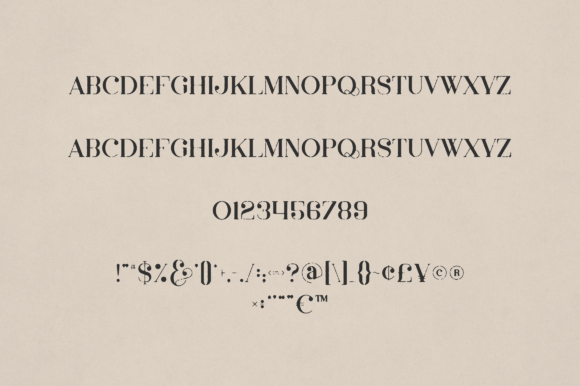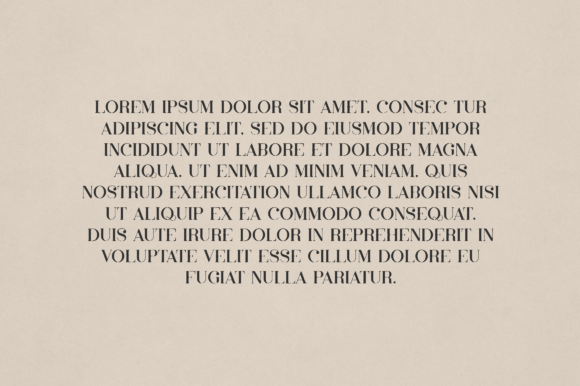
Celia Font: Elevate Your Design with Elegance and Versatility
In the world of typography, a font can make or break a design. It’s the foundation upon which your creative vision is built, and when chosen wisely, it can elevate your project to new heights. This is where Celia Font comes into play – an elegant and versatile serif font designed to make your typography truly unique. Whether you’re working on a logo, branding, headline, or plain text, Celia is the perfect companion to bring your design to life.
The Essence of Celia Font
Celia Font is not just any ordinary font. Its elegance and versatility are what set it apart from the rest. With its refined serif lines and classic appeal, Celia exudes sophistication and charm. This font is meticulously crafted to add a touch of luxury and refinement to any design project. Whether you’re aiming for a vintage look or a modern aesthetic, Celia adapts seamlessly, making it an ideal choice for designers and crafters alike.
One of the standout features of Celia Font is its incredible versatility. It’s a font that can be used across a myriad of design projects, including:
• Branding Projects: Establish your brand identity with a font that communicates elegance and professionalism.
• Home-Ware Designs: Add a touch of sophistication to your home decor designs, making them stand out with a unique typographic style.
• Product Packaging: Elevate your product’s presentation with a font that speaks of luxury and quality.
• Magazine Headers: Create captivating headlines that draw readers in with Celia’s classic charm.
• Text Overlay: Use Celia as a stylish text overlay on any background image, adding depth and character to your visuals.
Why Choose Celia Font?
With so many fonts available, why should Celia be your go-to choice? Here are a few compelling reasons:
• Uniqueness: Celia offers a unique style that will set your designs apart from the crowd.
• Versatility: Its adaptability across various design projects makes it a valuable addition to your font library.
• Elegance: Adds a touch of sophistication and luxury to any design.
• Readability: Despite its elegance, Celia maintains excellent readability, making it perfect for both headings and body text.
Tips for Using Celia Font Effectively
To get the most out of Celia Font, consider the following tips:
• Mix and Match: Don’t be afraid to experiment with different weights and sizes of Celia to create visual hierarchy in your designs.
• Pair Wisely: While Celia is stunning on its own, pairing it with complementary fonts can add another layer of interest to your typography.
• Consider Context: Think about the context in which your design will be viewed and adjust your use of Celia accordingly. For instance, a larger size may be more impactful for a billboard than a business card.
Celia Font is more than just a serif font – it’s a design statement. Its elegance and versatility make it an invaluable asset for designers and crafters looking to add a touch of sophistication to their projects. Whether you’re working on a branding project, product packaging, or simply want to add a stylish text overlay to an image, Celia is the perfect choice. With its unique charm and adaptability, Celia Font is set to become your go-to for creating truly memorable designs.